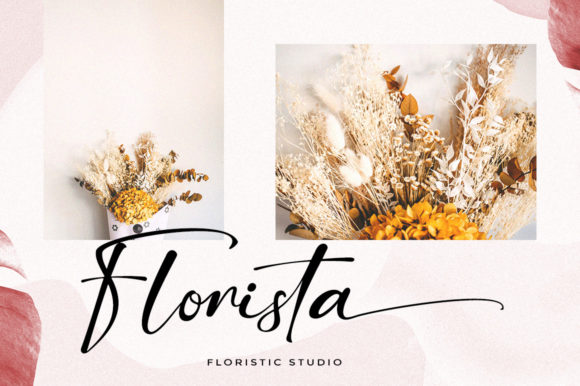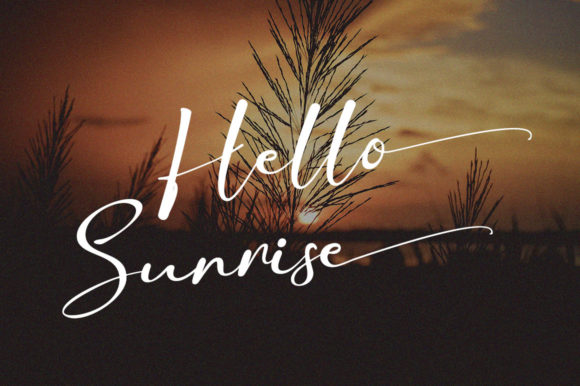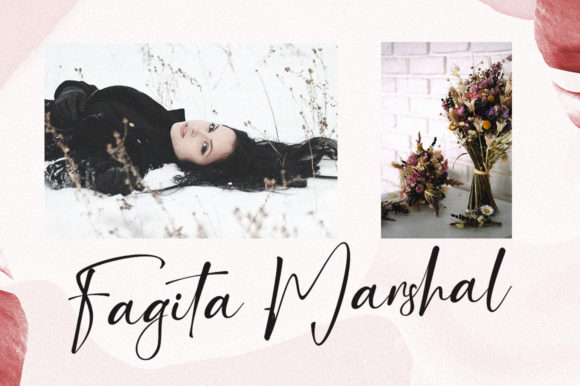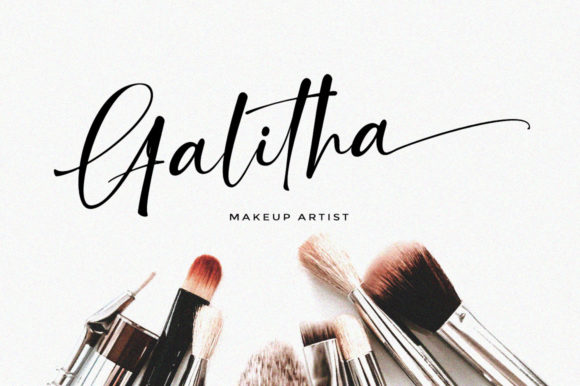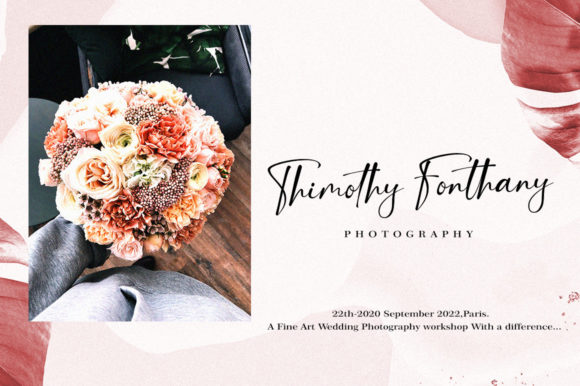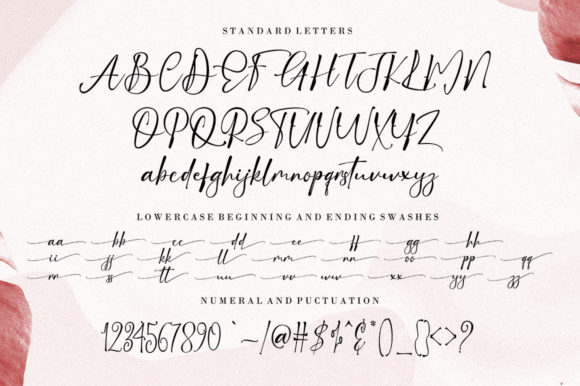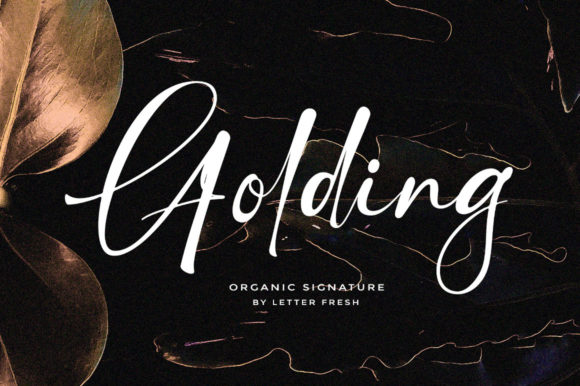
About Golding Signature Font
Golding Signature is a laid-back script font, featuring versatile characters that seem to dance along the baseline. This font is PUA encoded which means you can access all of the amazing glyphs and ligatures with ease!